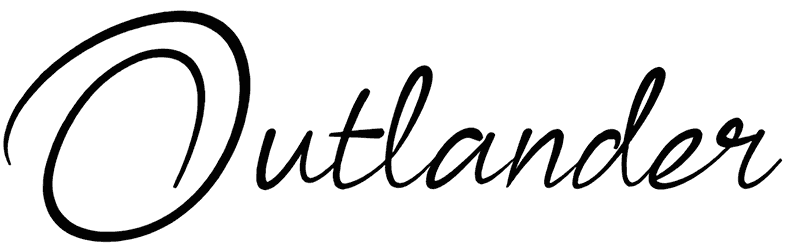
Outlander Font
The Outlander is a gorgeous font that has a striking design. This script font features thin letters that create a luxurious style, making it memorable.
The Outlander font’s stunning design can be helpful in various situations, such as magazines, postcards, logos, and branding. When you look at this handwritten font, its letters have rounded edges and seem italic, which creates an exceptional experience for the viewers.